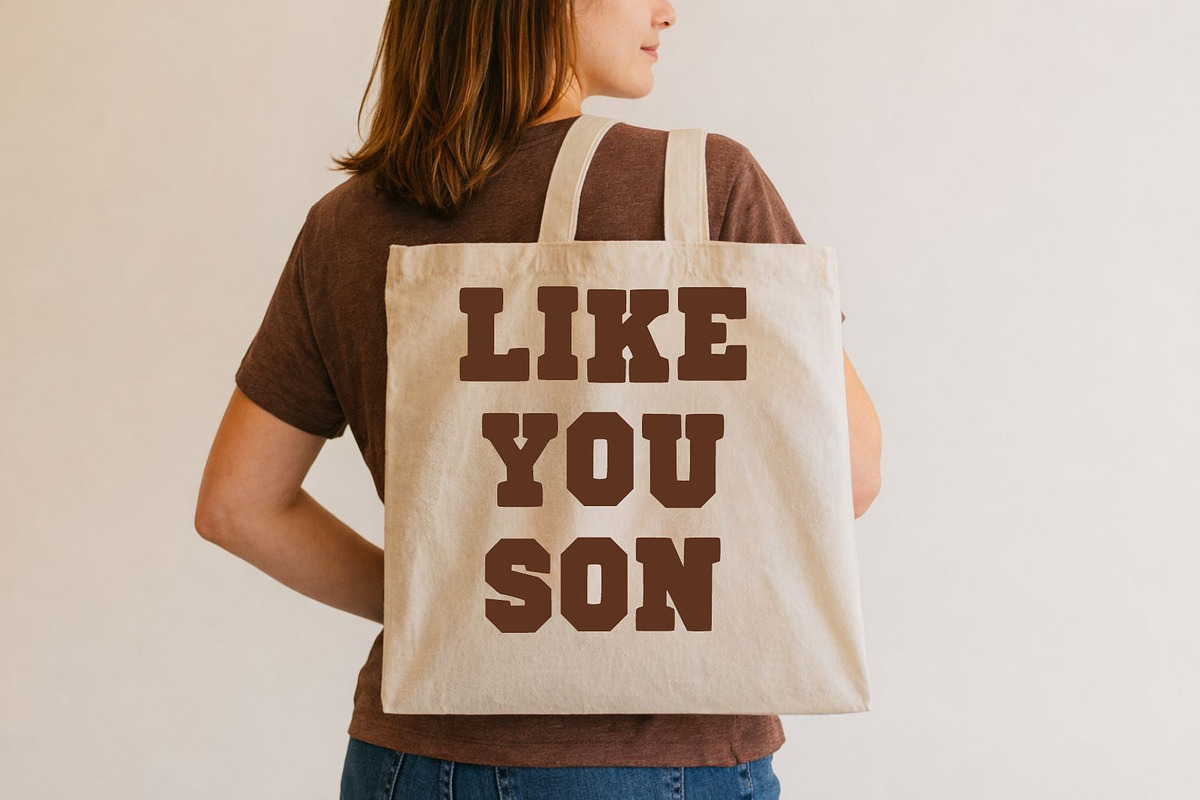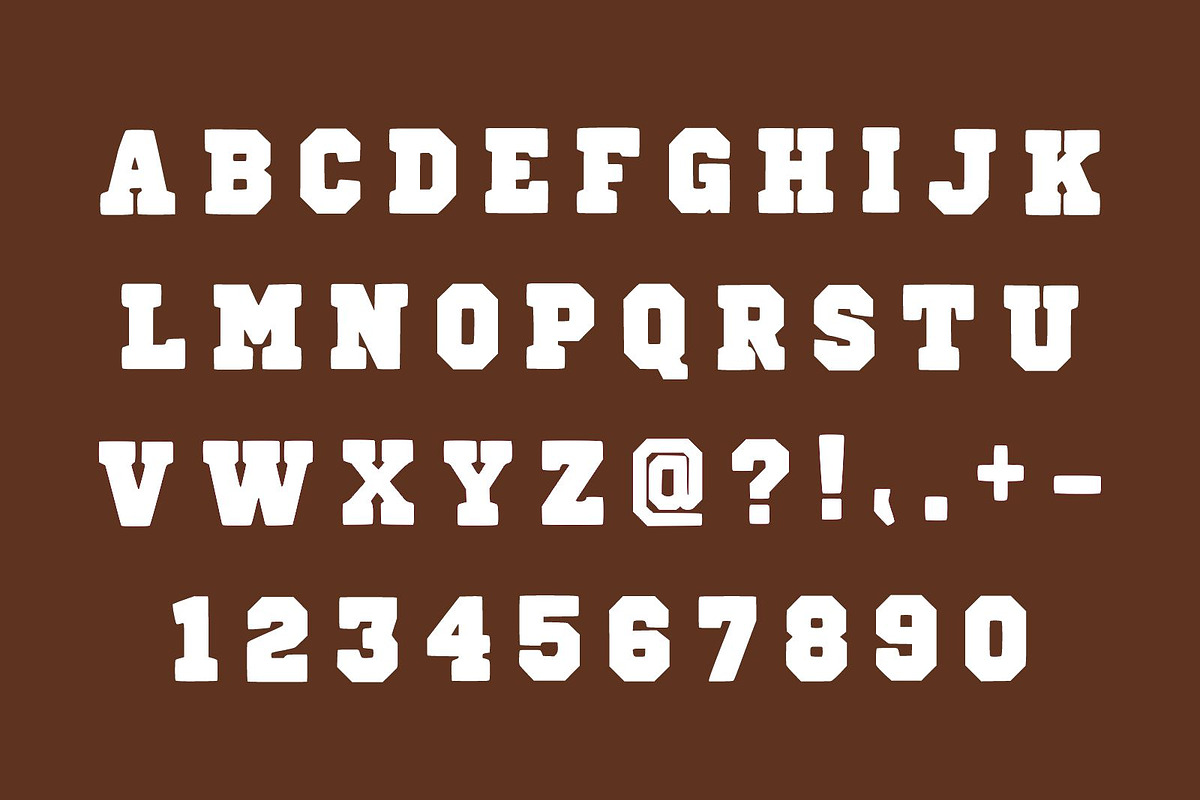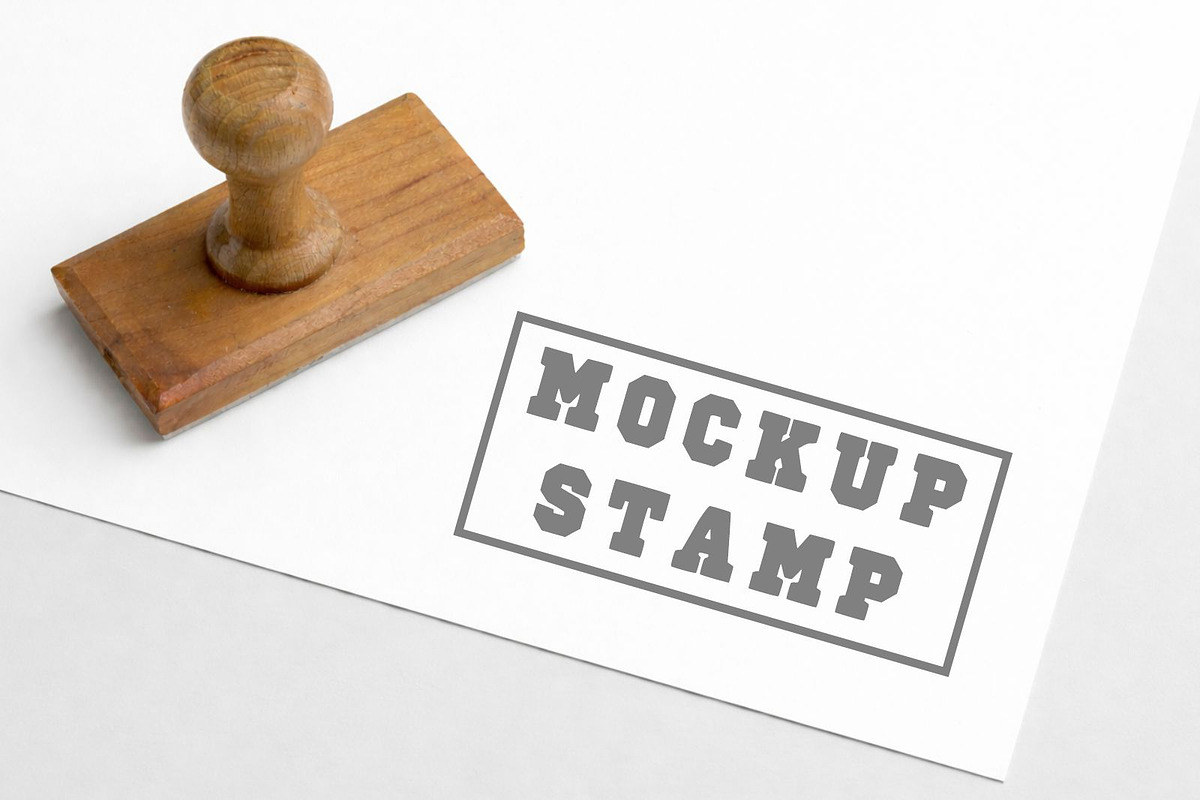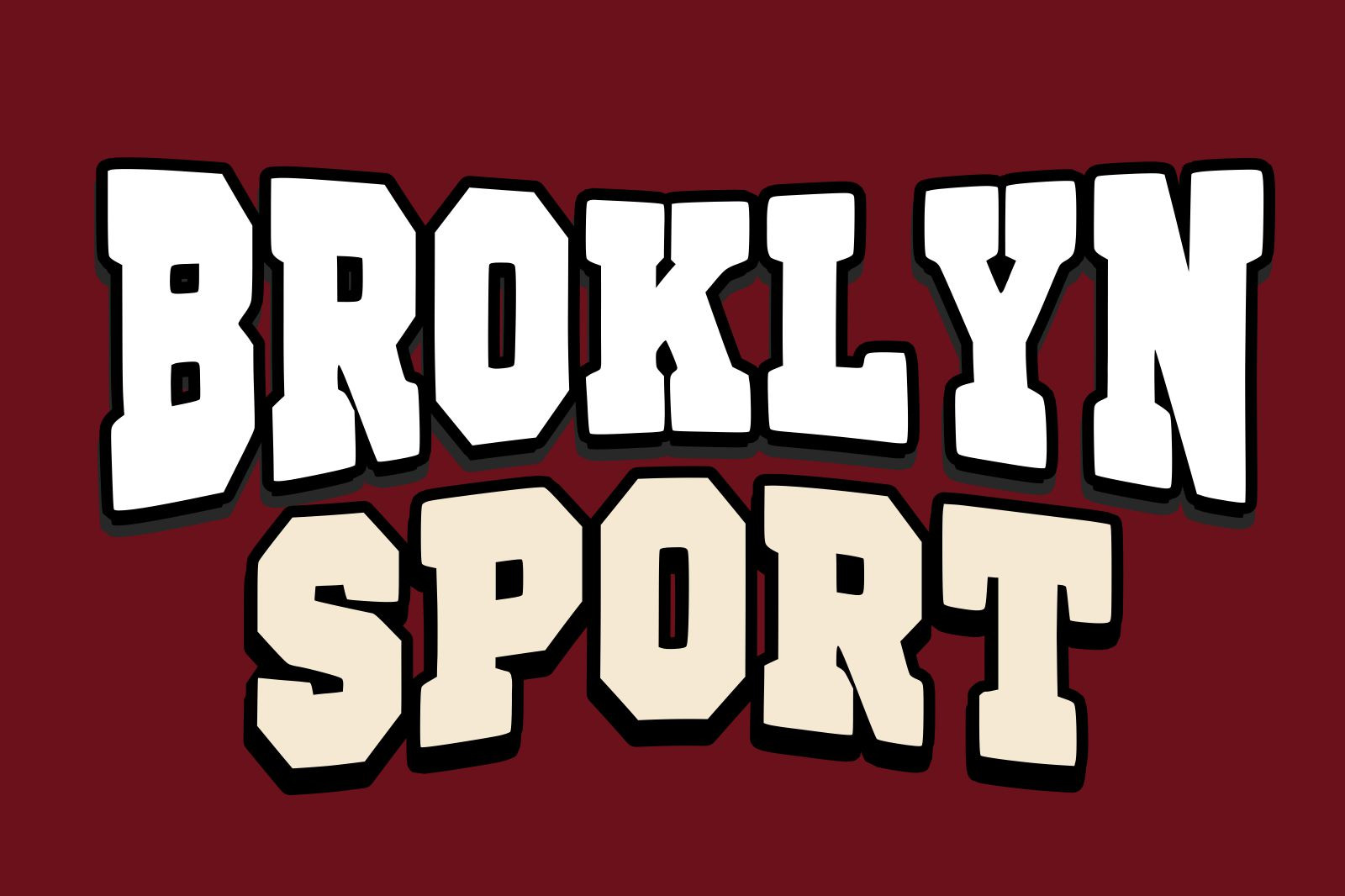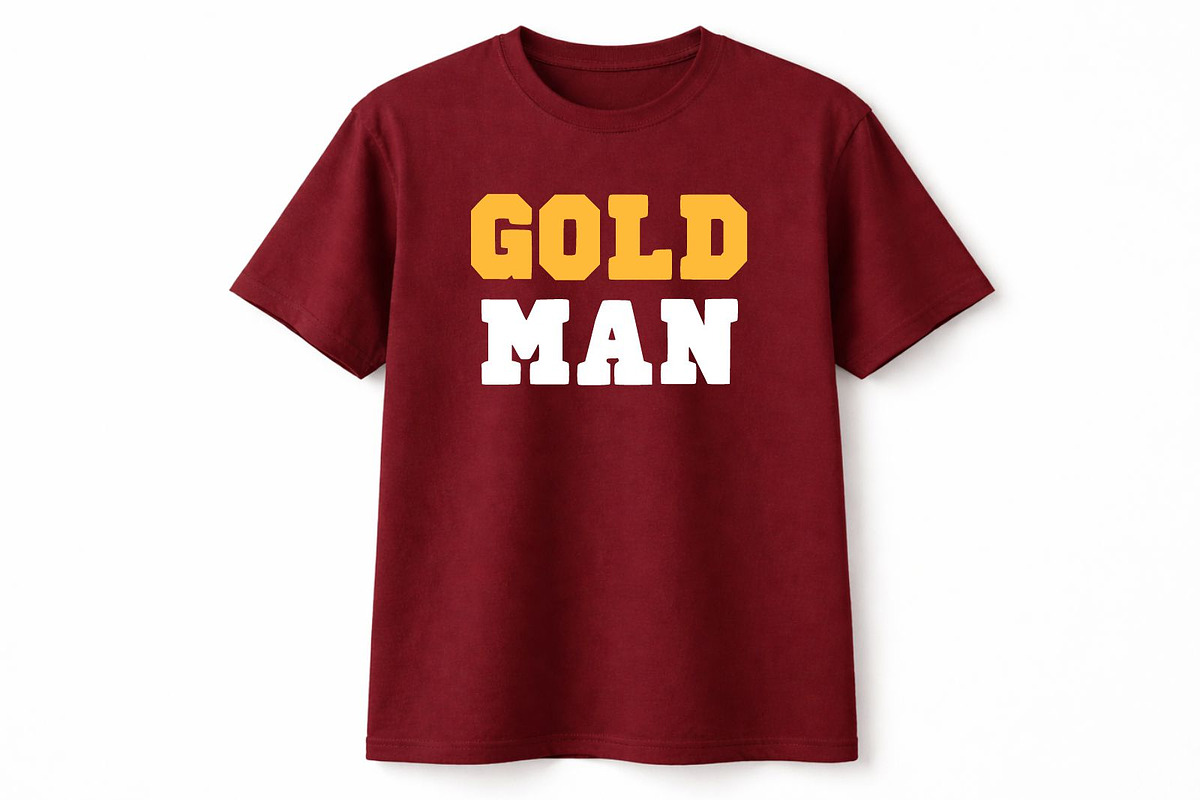
Brooklyn Sport – Bold Athletic Font
Brooklyn Sport is a bold and powerful athletic display font inspired by classic varsity and sports lettering. Designed with thick block characters and strong outlines, this font is perfect for team logos, jersey designs, sports branding, posters, merchandise, gaming titles, school events, and streetwear projects. Its energetic and modern sporty style makes every design look confident, dynamic, and eye-catching.